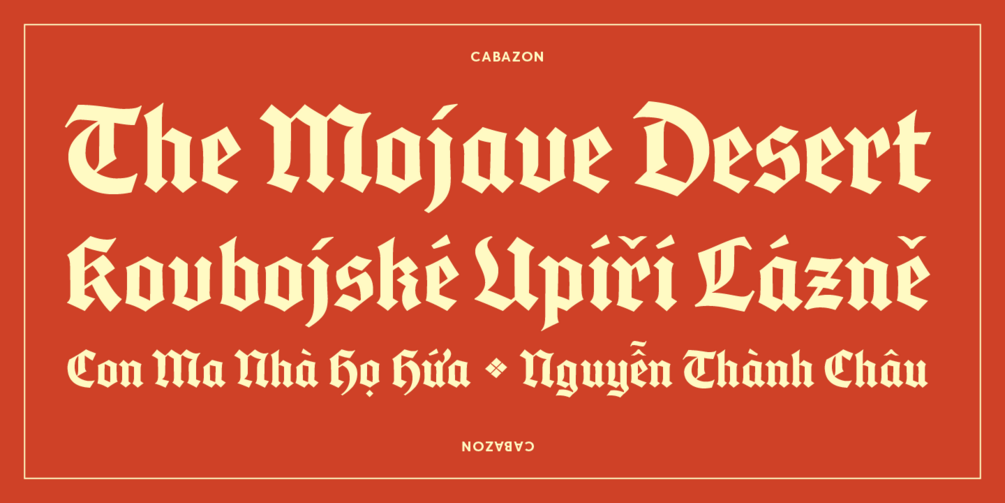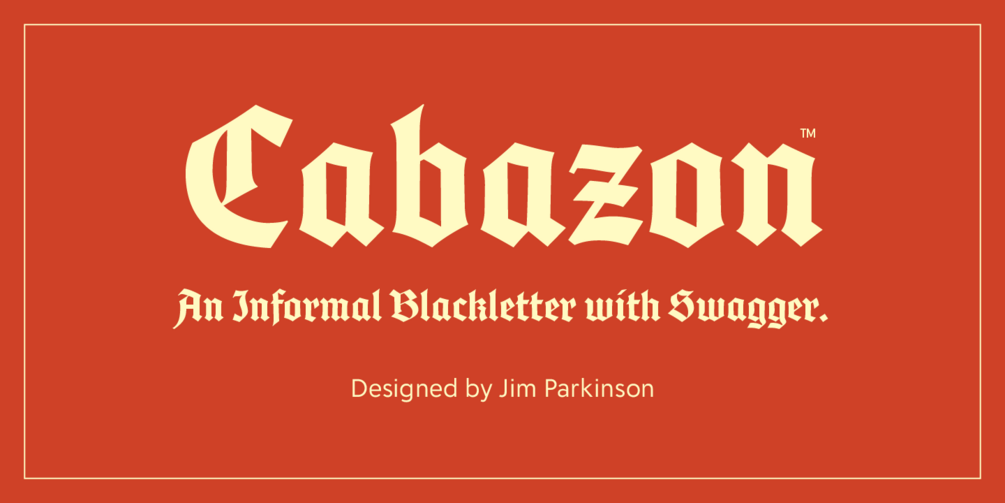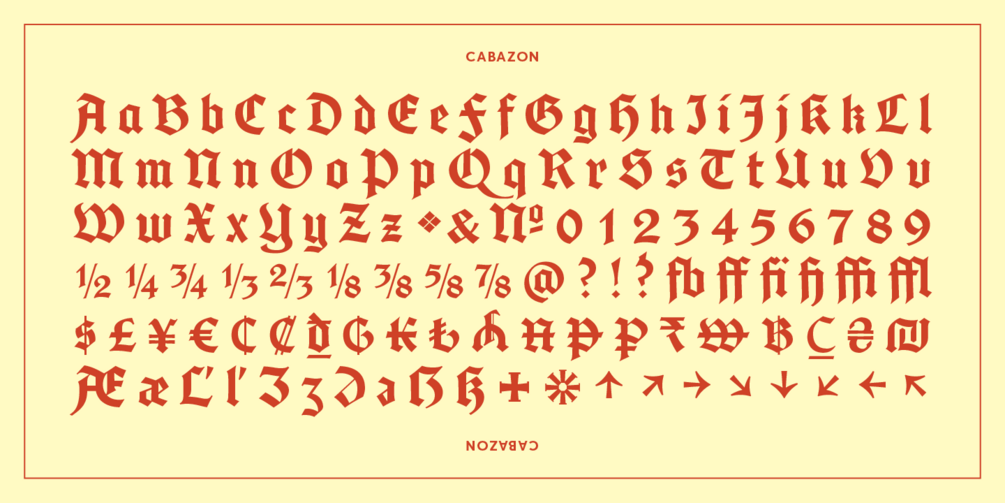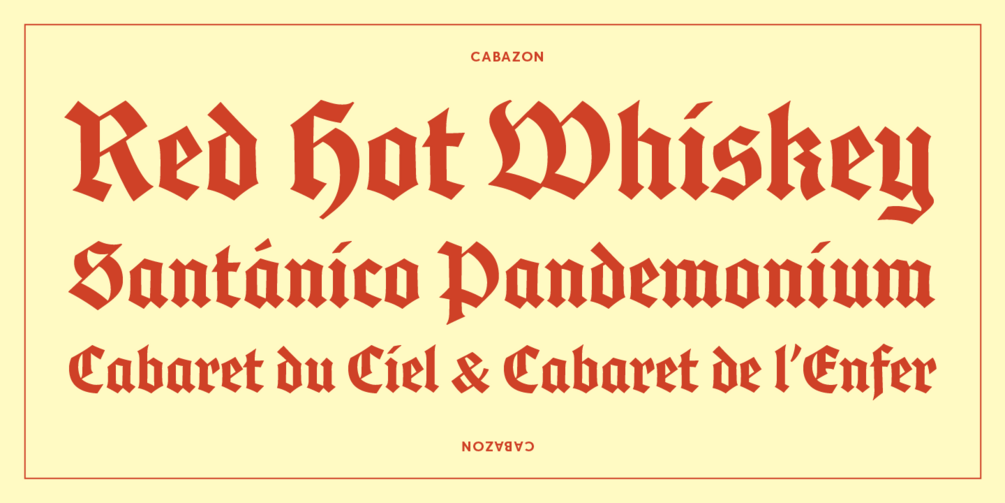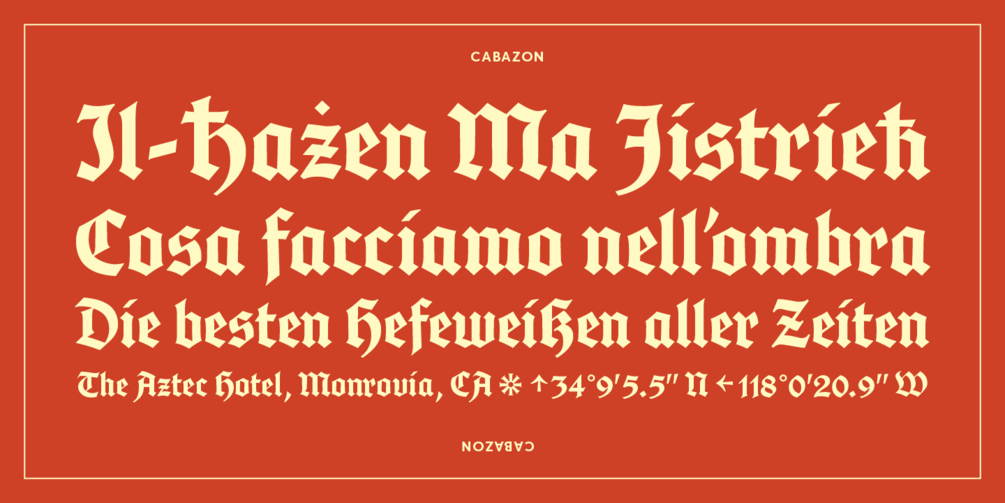
Cabazon is an informal blackletter type Jim Parkinson designed and first published in 2005. In creating Cabazon, Parkinson researched legacy blackletter types and handlettered samples, and early manuscript samples. In particular, Parkinson found works by mid-20th century artists Rudolf Koch, Ross George and Samuel Welo to be inspirational in pursuing his vision for Cabazon.
Many of the forms in Cabazon are simplified compared to other blackletter styles. Cabazon retains the warmth of handlettered forms and evokes a more casual feel with a bit of swagger but it certainly doesn't take itself too seriously. Parkinson’s own experience creating numerous blackletter nameplates for newspapers spanning several decades of his career informed his effort in producing this delightful type.
This update (v3.0) for Cabazon expands the glyph repertoire to over 1,000 glyphs supporting 224+ languages, including Vietnamese, African, and Oceanian languages. Among all those new glyphs, are a selection of stylistic alternates, liga- tures, arrows, symbols, and more. Opentype features are built in to make accessing all those glyphs quick and convenient.
Use Cabazon for logos, food and beverage packaging, movie posters, and more for a charming and cool old world feel.